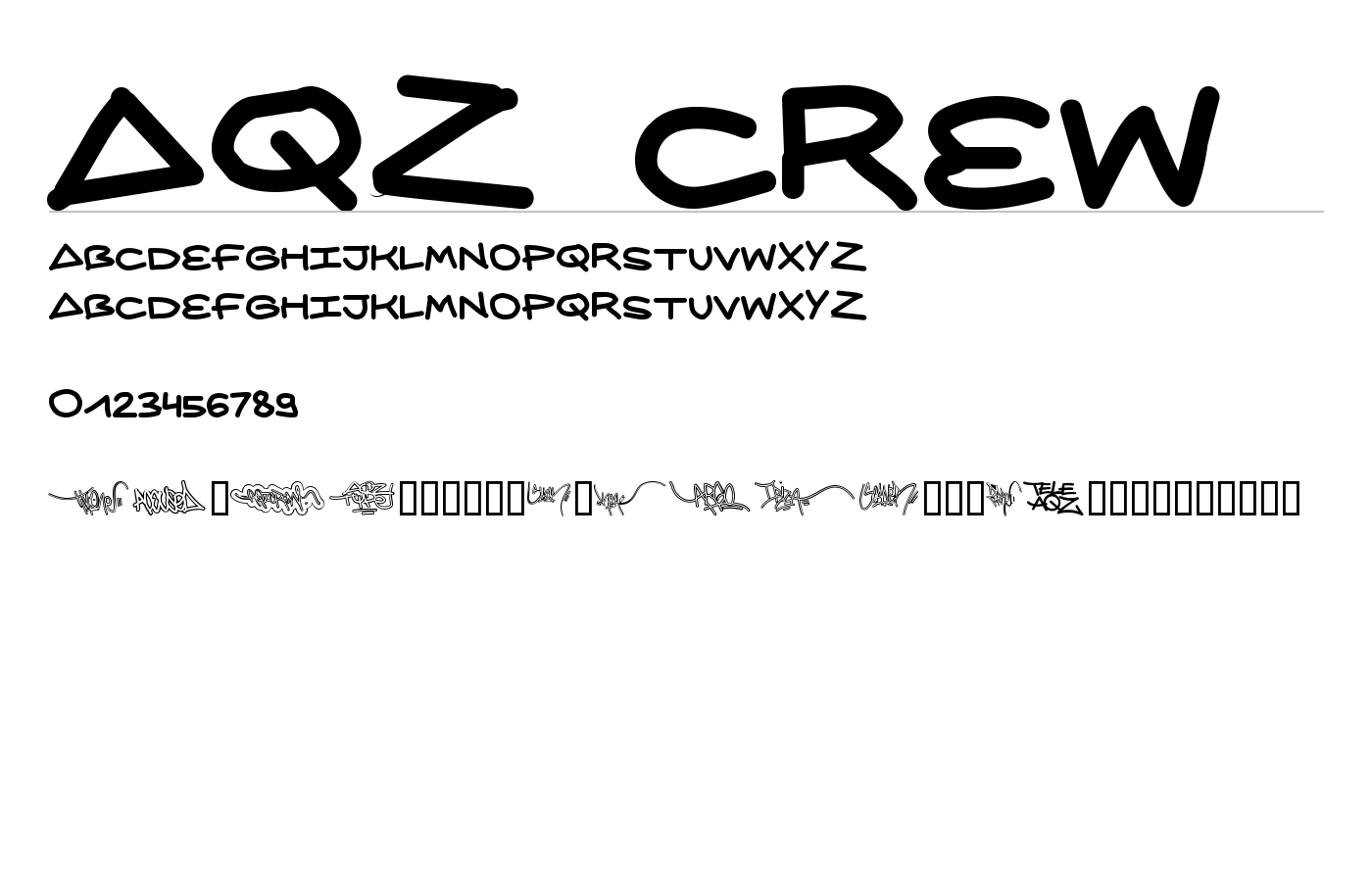
AQZ crew Font is a bold, playful sans serif typeface with a hand-drawn, casual feel. Its irregular, slightly wide letterforms and uneven strokes give it a youthful, creative personality, making it ideal for informal designs, logos, and posters where a fun and approachable look is desired. This font works well for projects that want to convey energy and originality without the formality of traditional typefaces.
AQZ crew Font
About AQZ crew Font